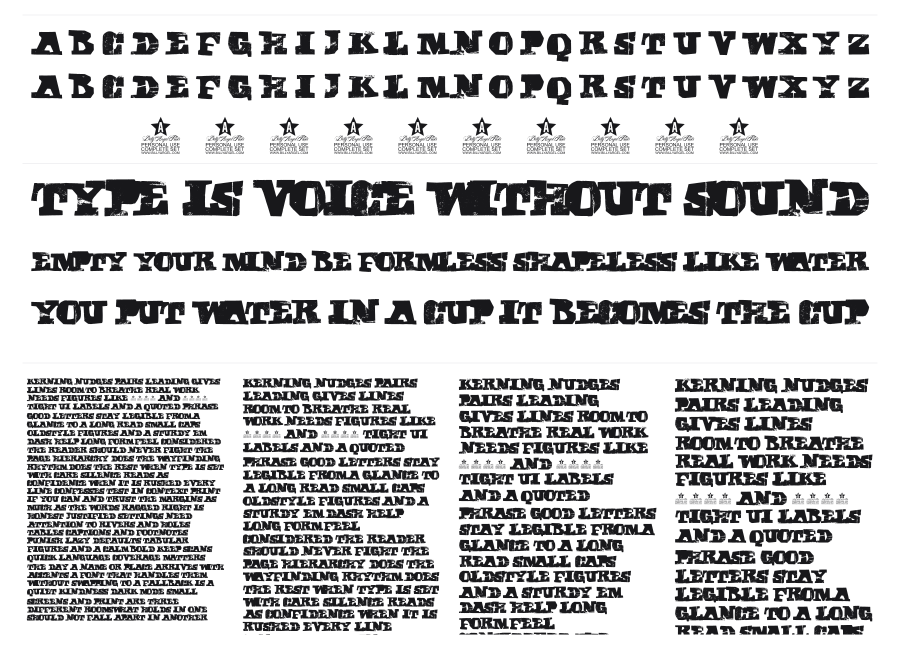
Cubika Script
Cubika Script is a heavy distressed serif built to look like it was pulled from a damaged printing block. The rough texture and chipped edges give it an authentically worn character, somewhere between old wood type and street-worn signage. It works best large, where the erosion detail reads as intentional craft rather than noise.